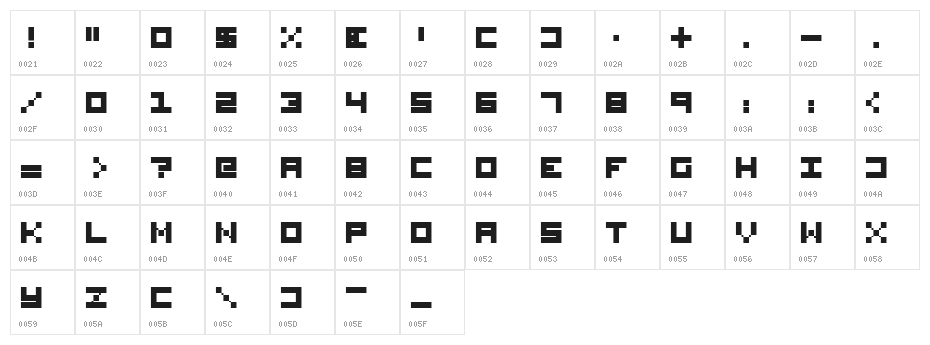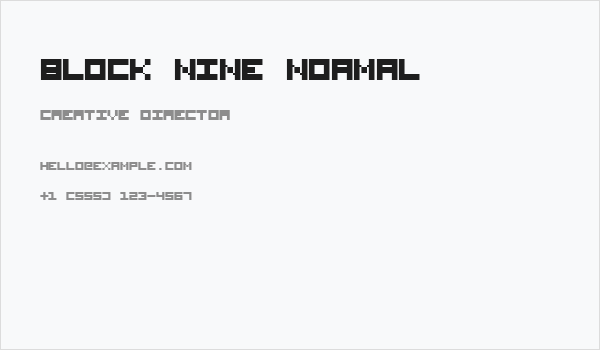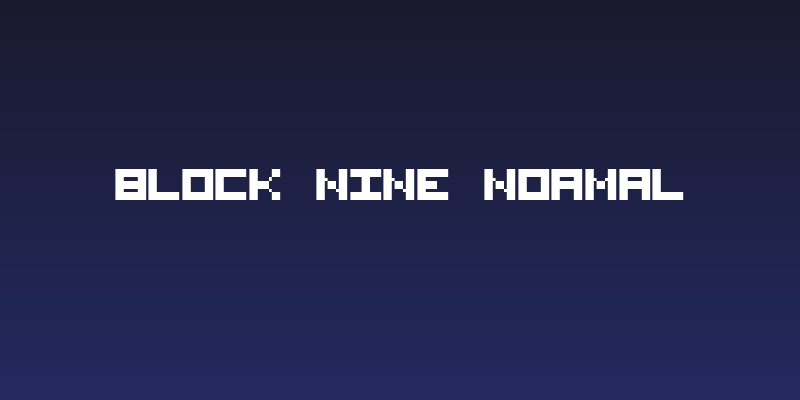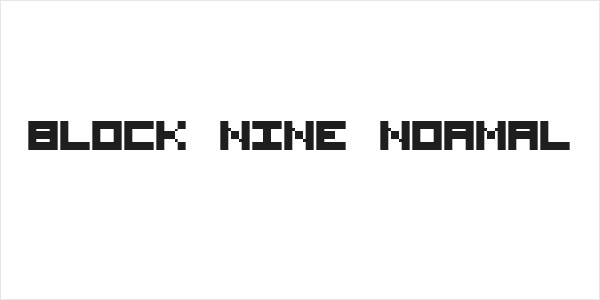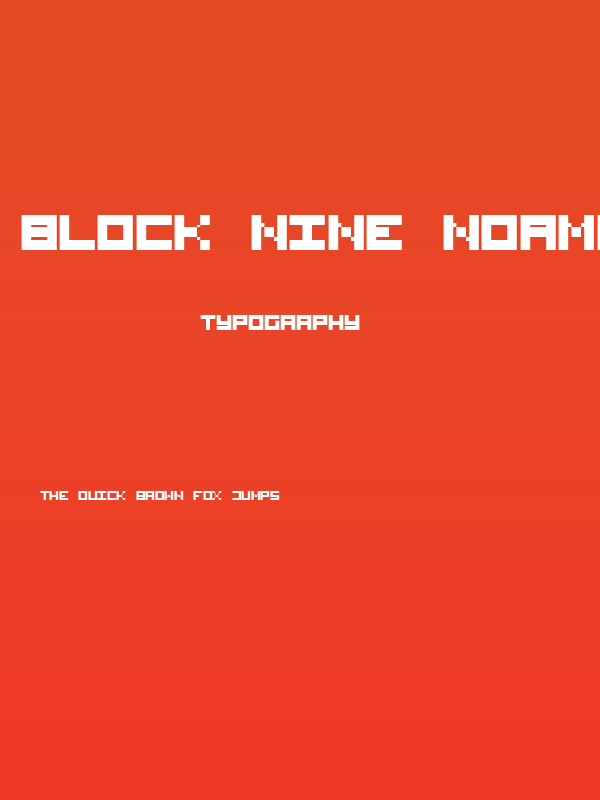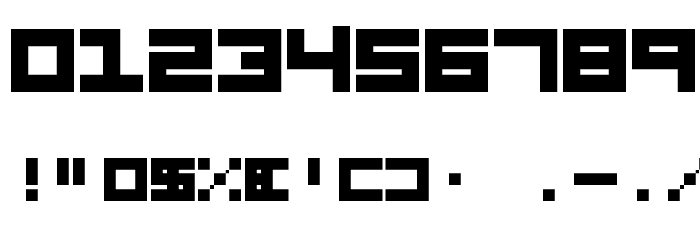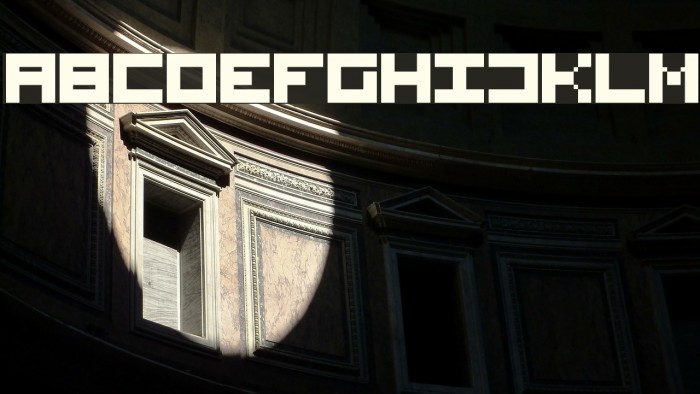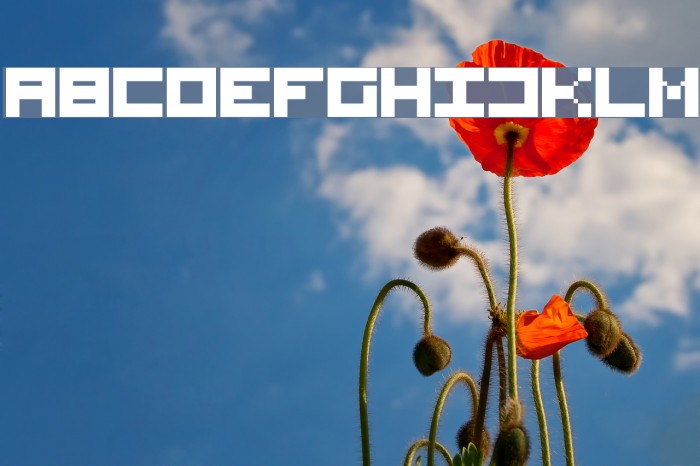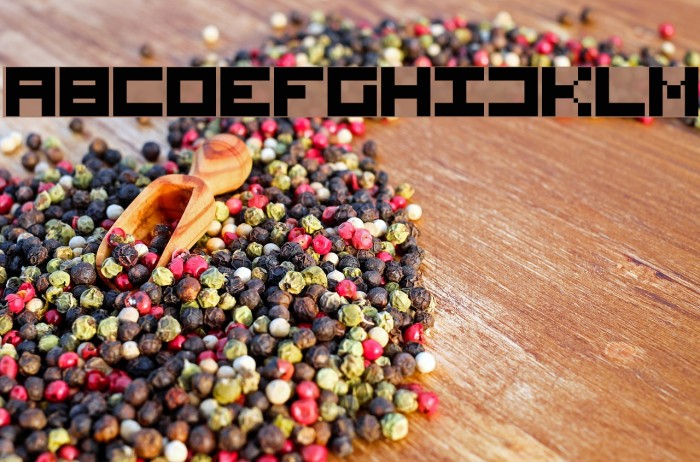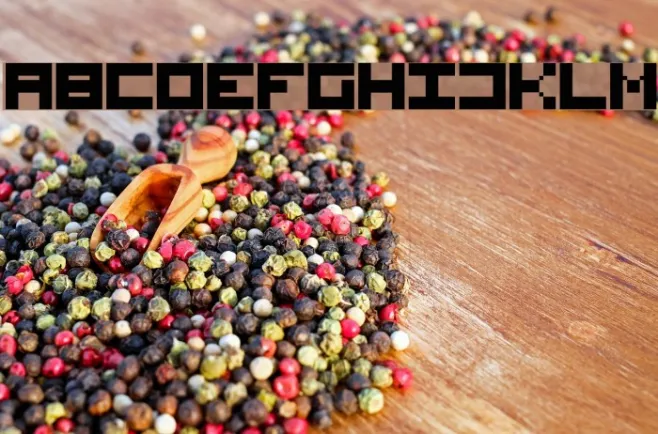
Block Nine Normal Font
Block Nine Normal Description
This font features a bold, geometric design with a strong emphasis on block-like shapes. Each character is constructed with a pixelated, grid-based structure, giving it a digital and modern appearance. The uniformity in stroke width across all characters contributes to a cohesive and consistent look. The uppercase and lowercase letters maintain a similar height, enhancing the font's uniformity. Numbers and special characters are designed with the same pixelated style, ensuring a seamless integration across different types of content. This font's distinct style makes it ideal for projects that require a futuristic or tech-inspired aesthetic.
| Use Case | Logos, Headlines, Digital displays |
| Proposed Projects | Ideal for digital art, video game design, tech branding, and futuristic-themed projects. |